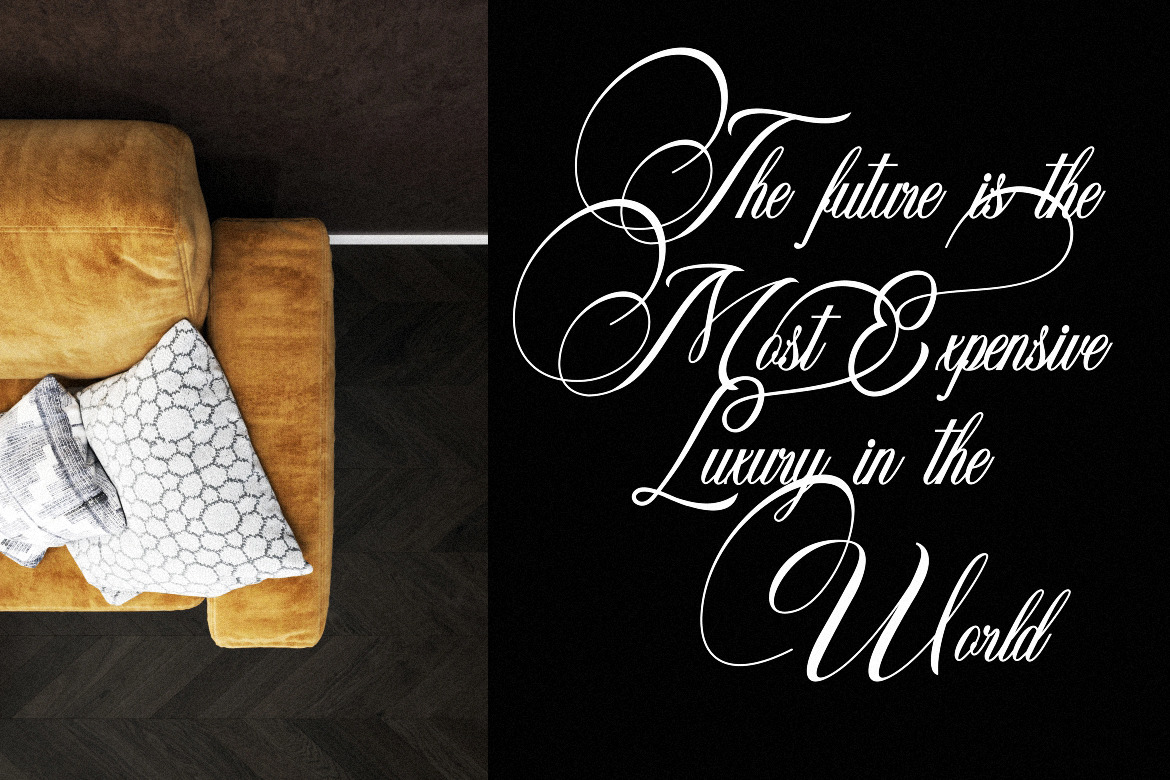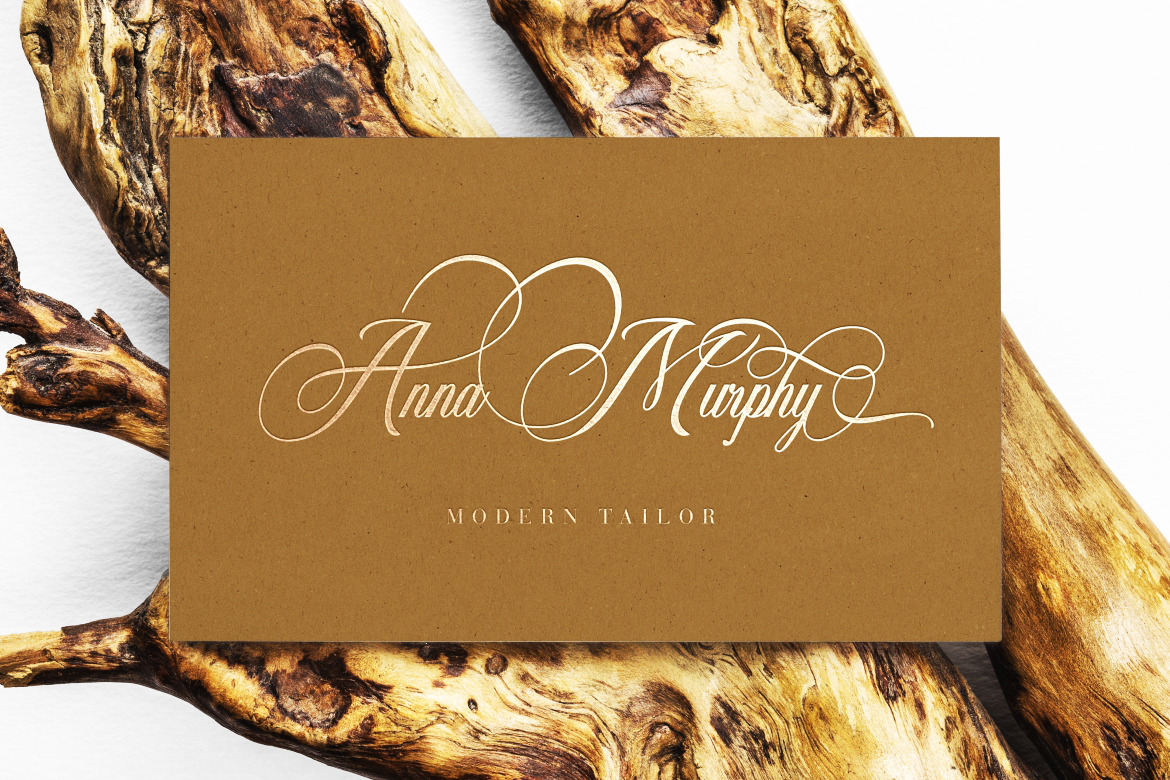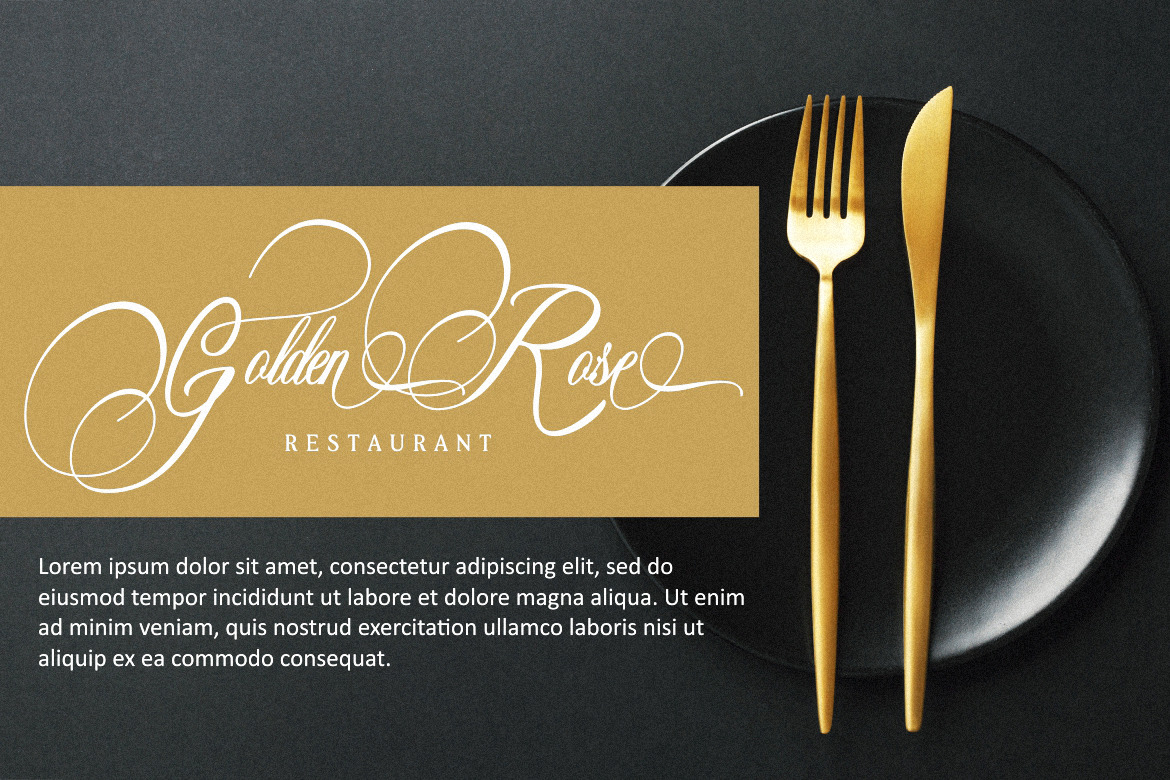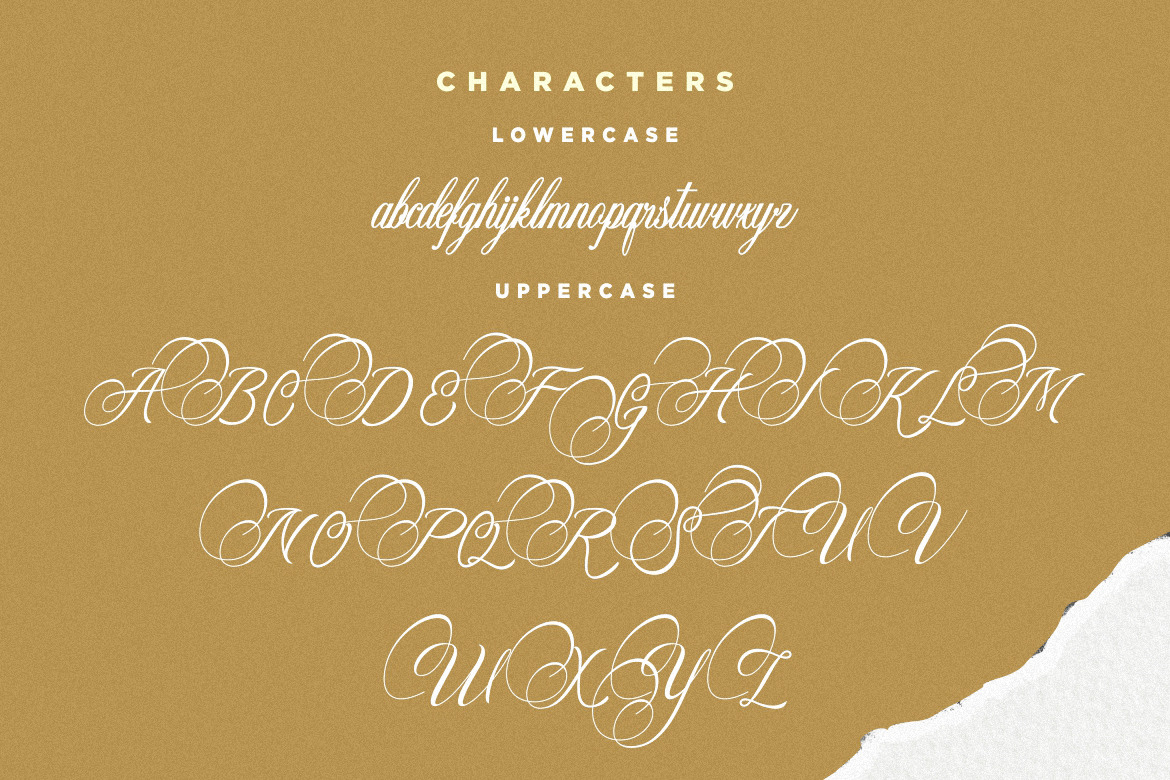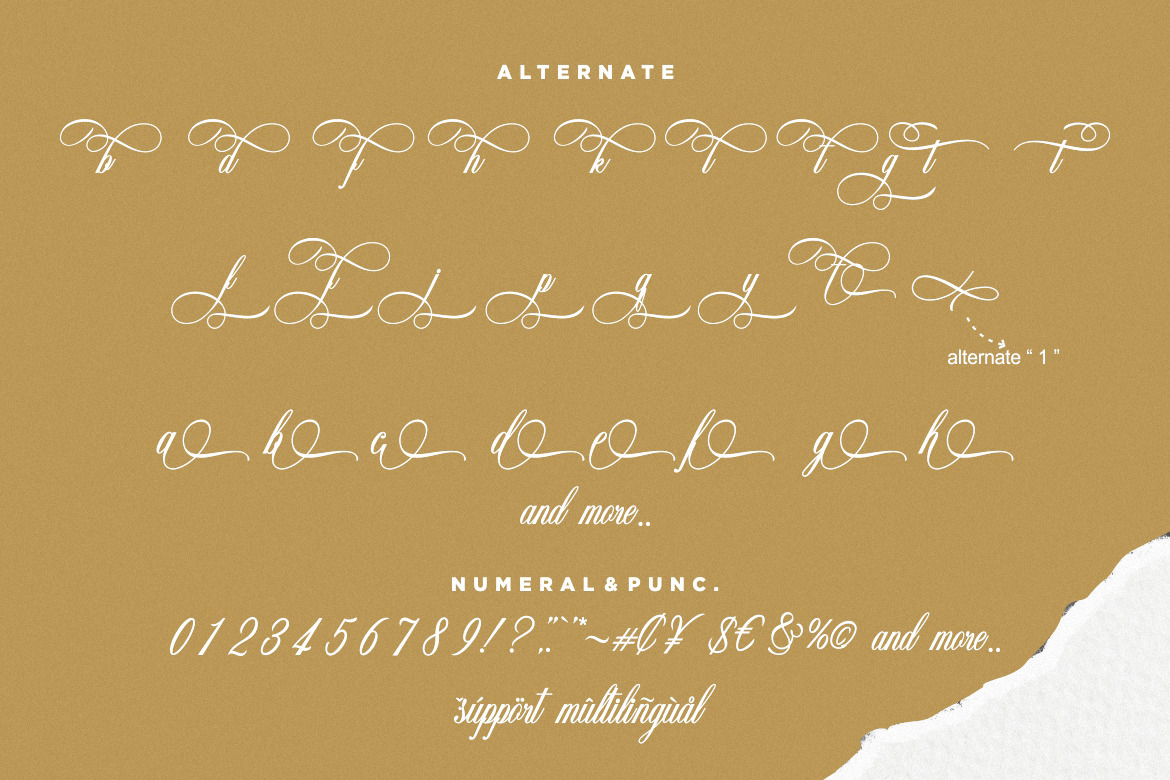
Amorista Font
Amorista is a luxury and elegant display font. Many alternate and ligature characters are also available in here. How to use it, if you use Adobe / Corel Draw you just block one of the letters and an arrow will appear under the letter, and you can replace it with alternative characters. This font is perfect for creating logo, print template like a poster, branding, wedding invitation, quote, or anything else.